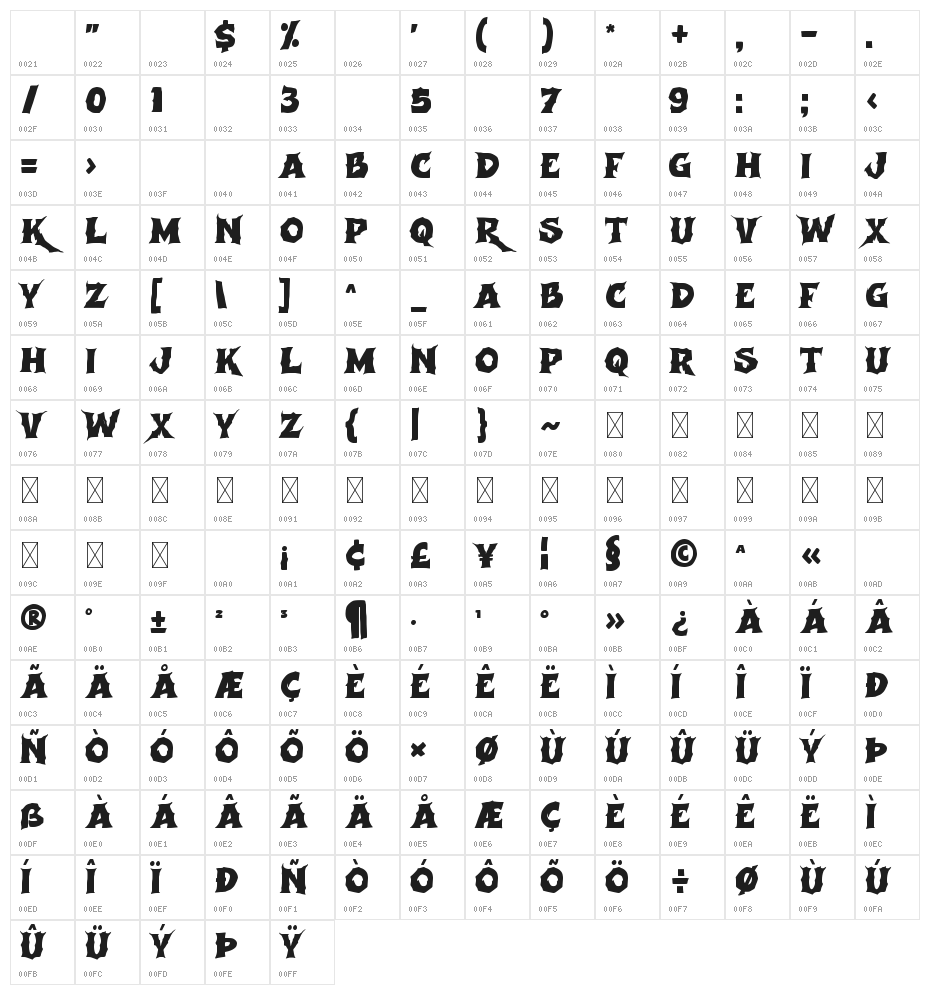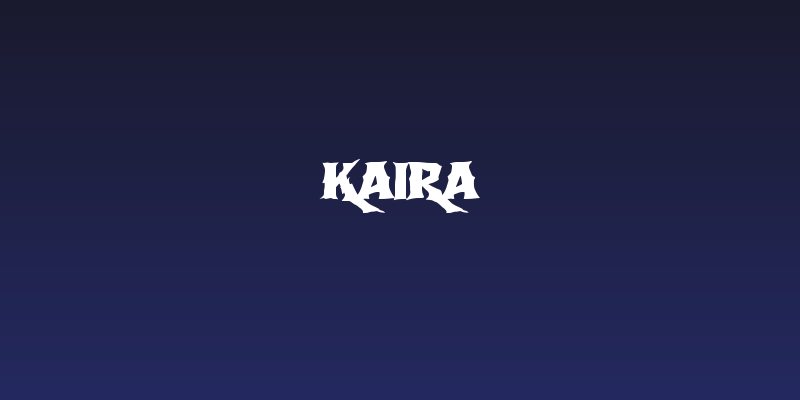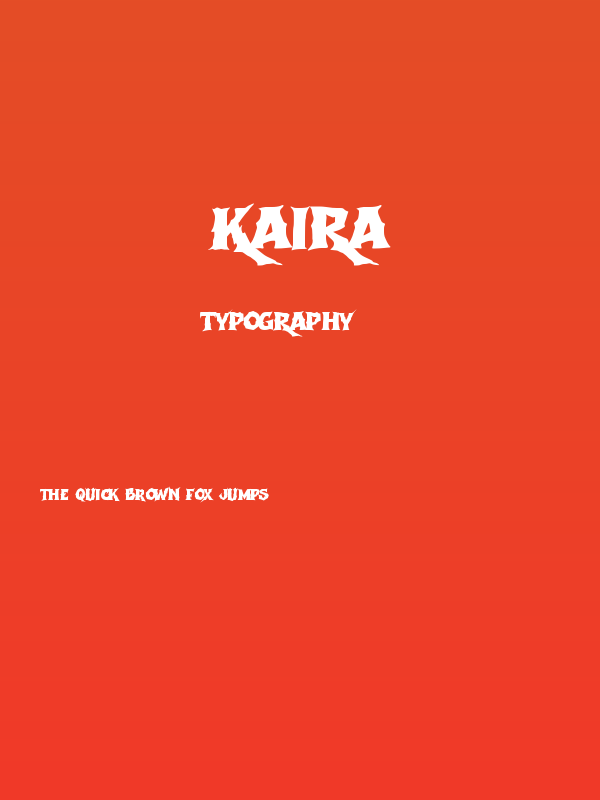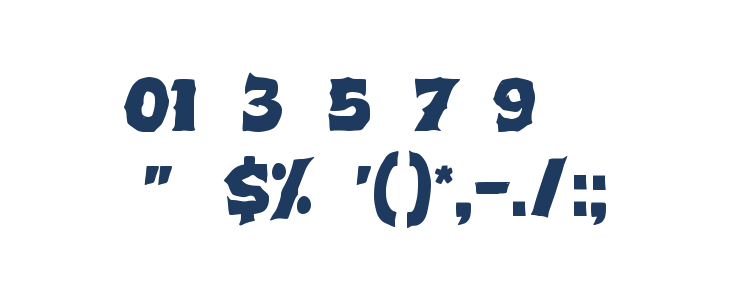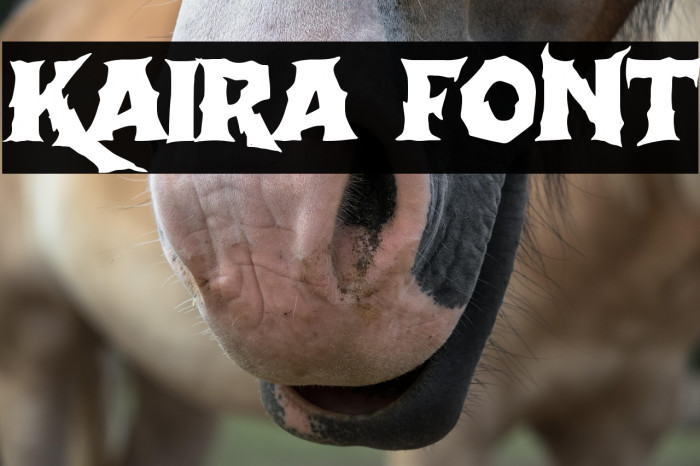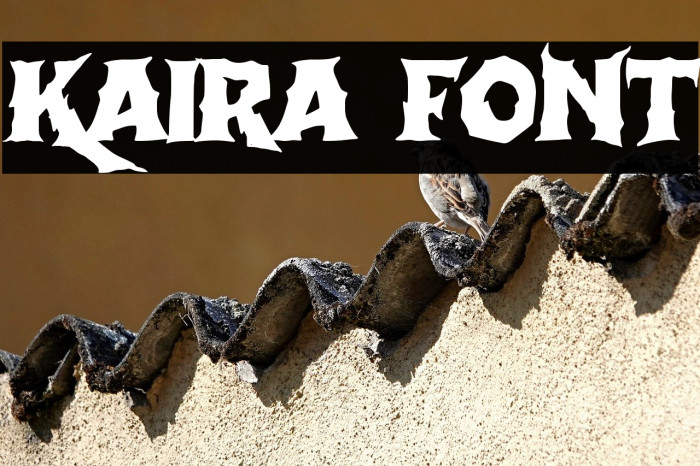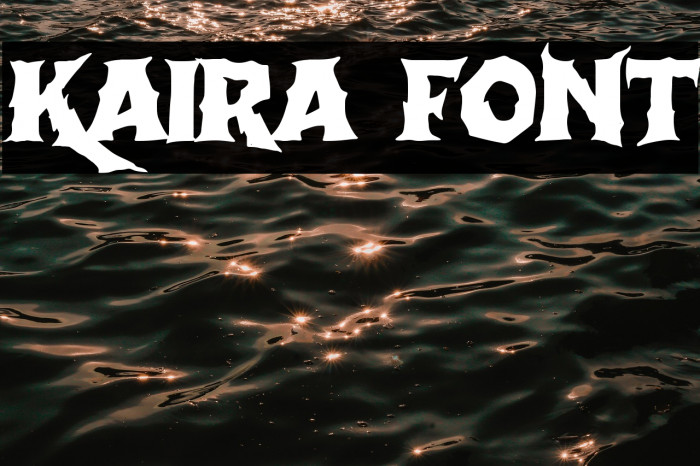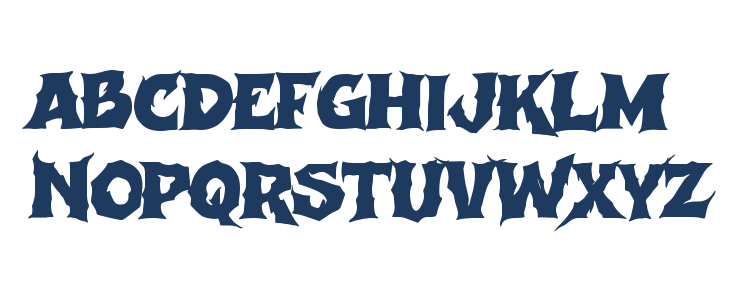
Kaira Font
Kaira Description
This font features a bold and aggressive design with sharp, angular edges and a distressed appearance. The characters are heavily stylized, giving them a jagged, almost torn look that suggests a sense of intensity and dynamism. The uppercase and lowercase letters maintain a consistent style, with exaggerated serifs and a slightly condensed form. Numbers and special characters follow the same bold and edgy aesthetic, making the font suitable for attention-grabbing designs. The overall look is reminiscent of graffiti or urban art, with a rebellious and energetic vibe.
KAIRA UPPERCASE
KAIRA LOWERCASE
KAIRA OTHER CHARS